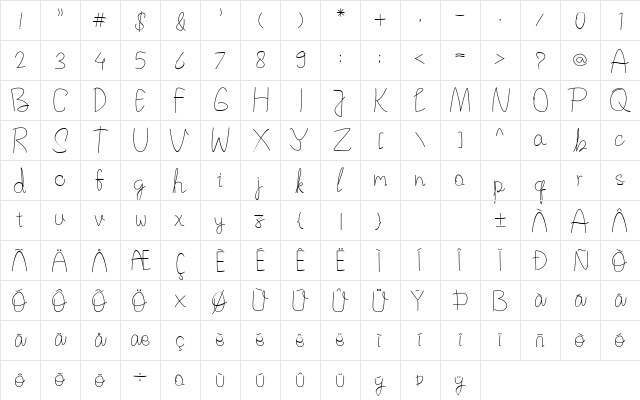
Pletoy Regular
| Foundry | PenPointype |
| Designer | PenPointype |
Design Context for Pletoy Typeface
Pletoy is a composed and adaptable typeface that performs quietly and consistently across a wide range of design contexts.